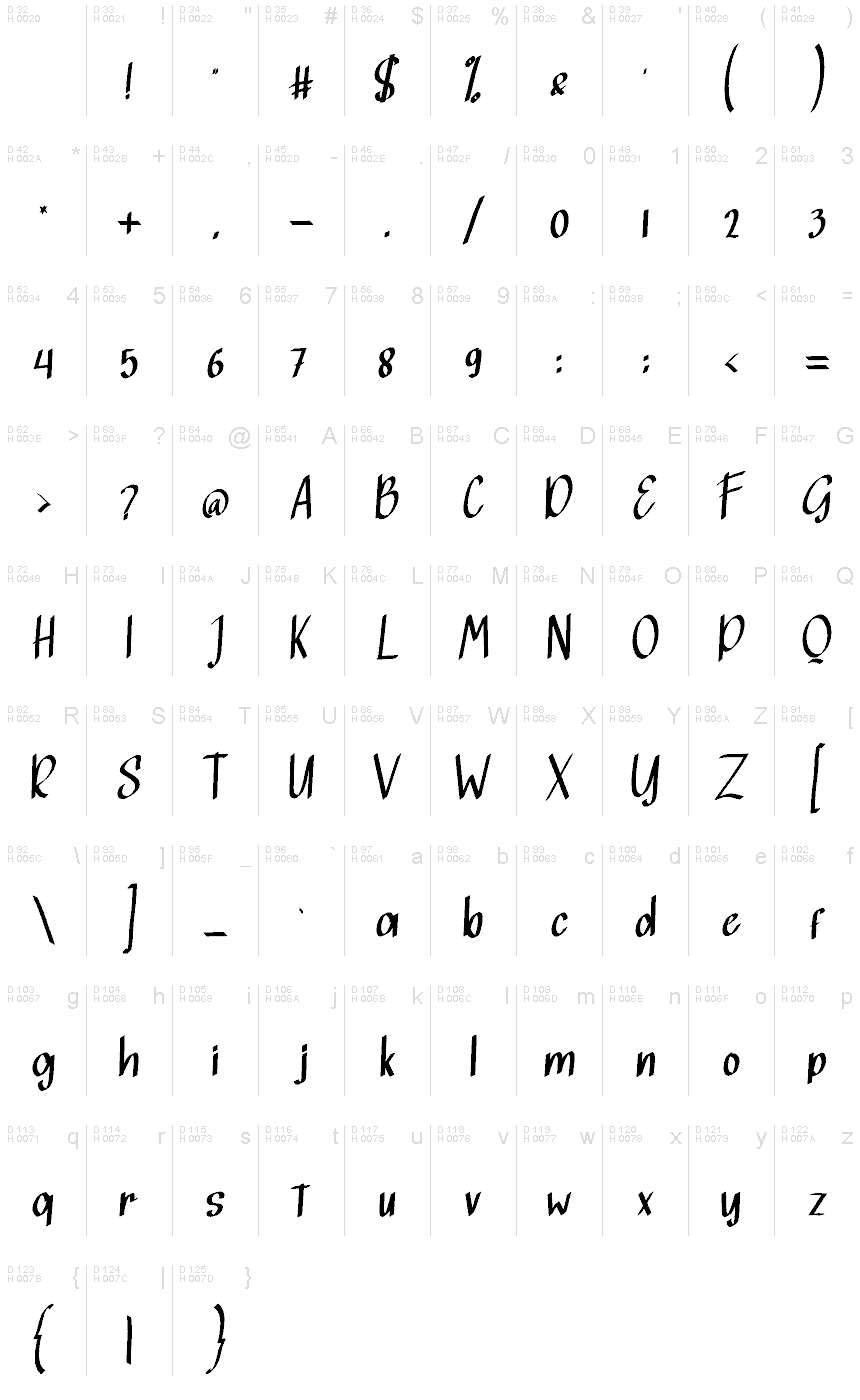
Selfros
Selfros font by Skiiller Studio is a free handwritten font filled with artistic flair and expressive, flowing forms. The elegant retro-inspired style of the typeface looks timeless while staying authentic to today’s trends.